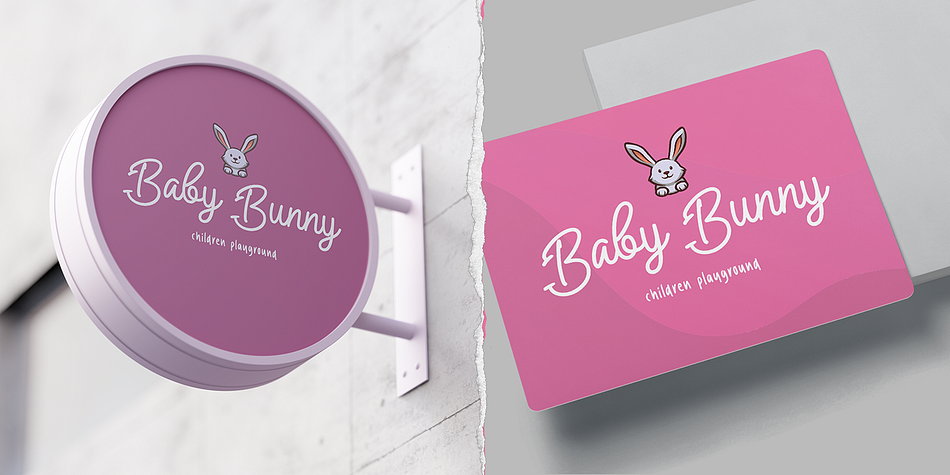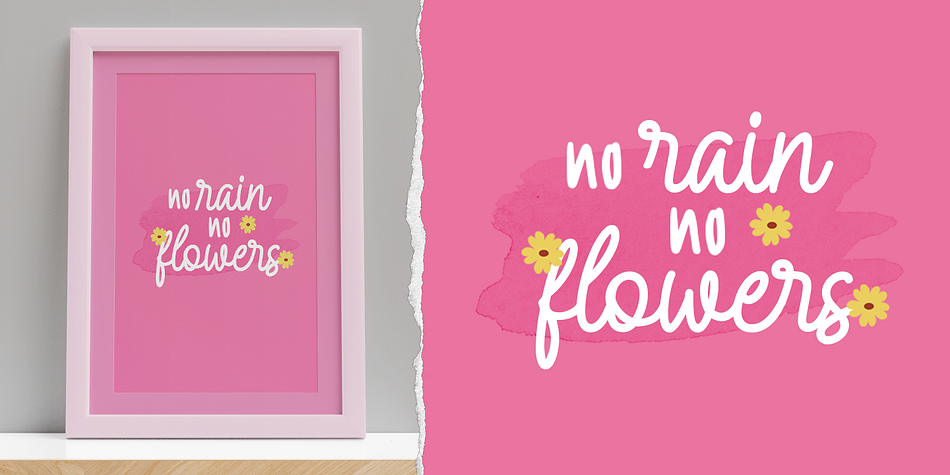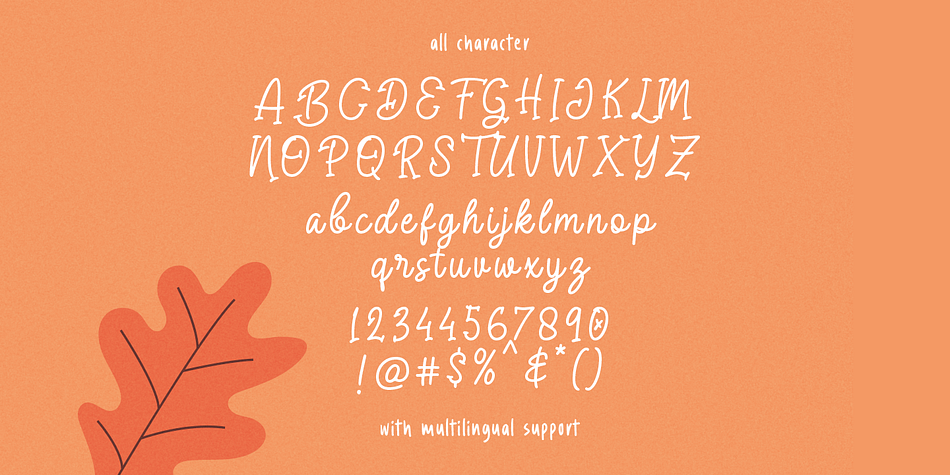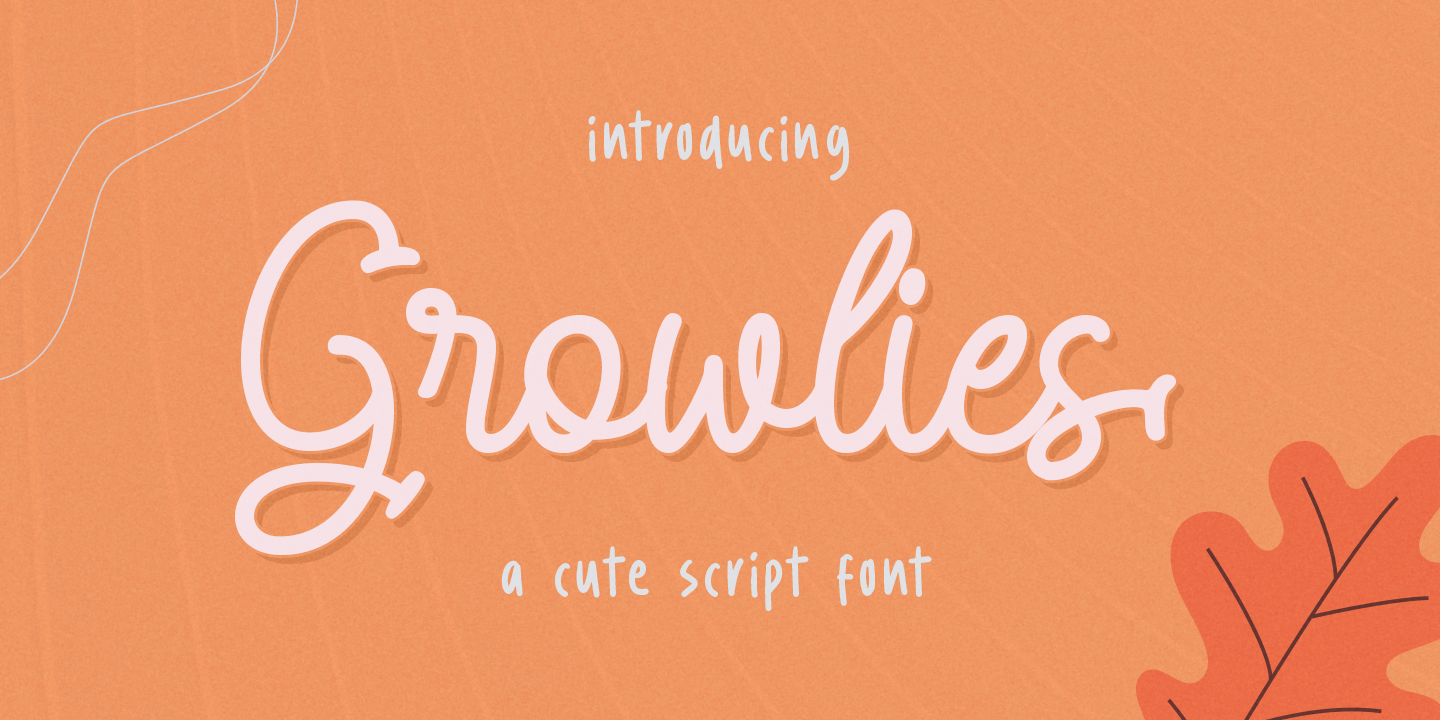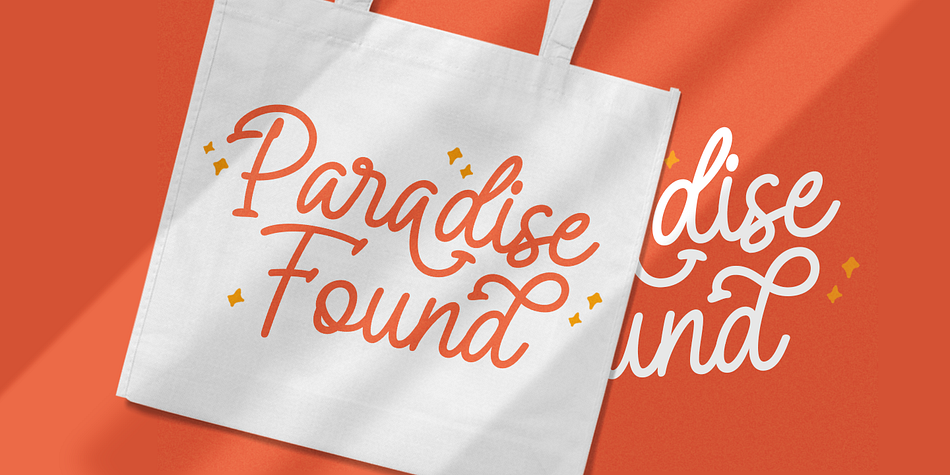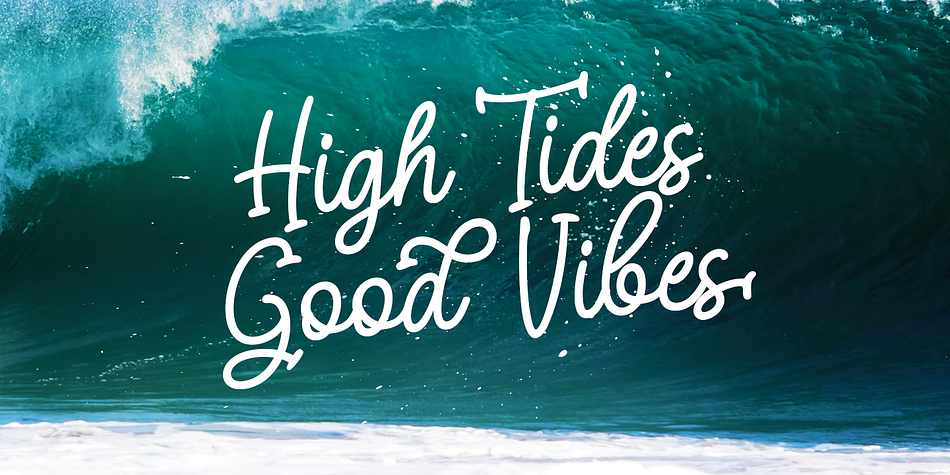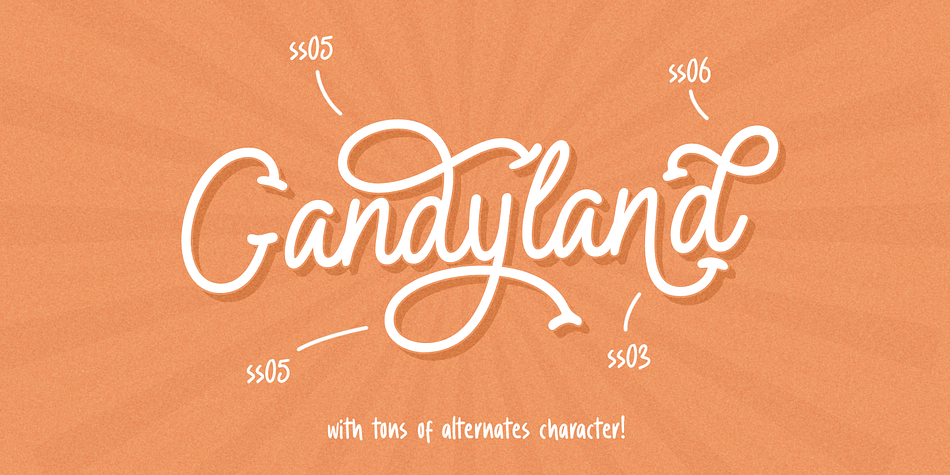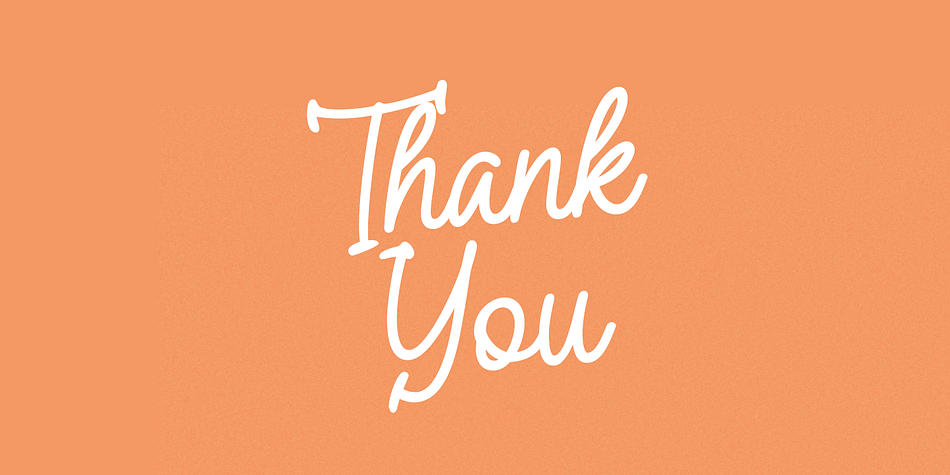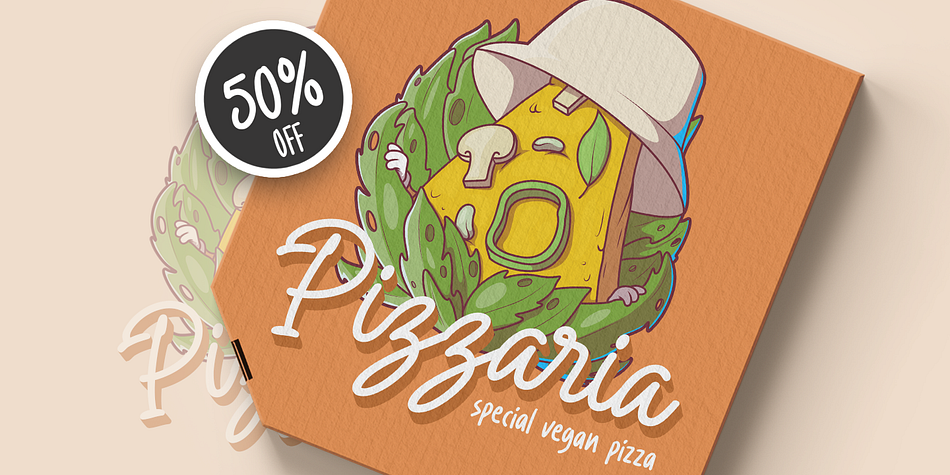
Designed by Hendry Juanda, Growlies is a script font family published by Letterhend Studio.
Growslies is a cute script font with playful looks. This type of font perfectly made to be applied especially in storybook children or child theme which is need a standout font, and the other various formal forms such as invitations, labels, logos, magazines, books, greeting / wedding cards, packaging, fashion, make up, stationery, novels, labels or any type of advertising purpose.
- Uppercase and lowercase
- ligatures